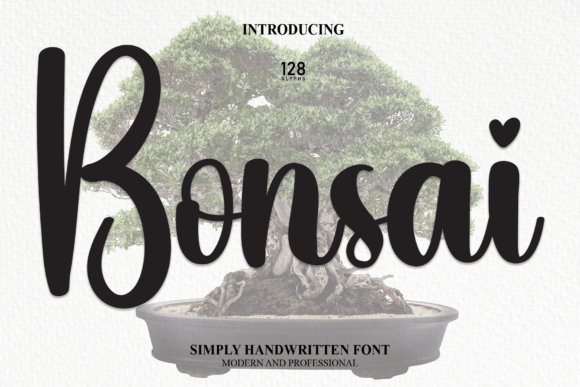
Meet Bonsai Font - a captivating script font that will infuse your designs with a touch of sweetness and charm. This elegant handwritten font is like a breath of fresh air, adding a delightful spark to any project. Its smooth, flowing lines and graceful curves evoke a sense of joy and romance, making it the perfect choice for adding a personal touch to your creations.
Whether you're crafting invitations, greeting cards, branding materials, or social media graphics, Bonsai Font will make your designs stand out. Its versatility extends to a wide range of projects, from playful posters to sophisticated logos. Unleash your creativity and explore endless possibilities with this charming font.
Bonsai Font is a treasure trove of artistic expression. Its unique style adds a touch of whimsy and warmth to your designs, capturing the essence of handwritten notes and personal touches. It's the perfect font for expressing your individuality and creating designs that resonate with your audience.
So why settle for ordinary when you can embrace the extraordinary? Choose Bonsai Font and embark on a creative journey that will leave your audience captivated. Let your designs blossom with beauty, grace, and a touch of enchantment.